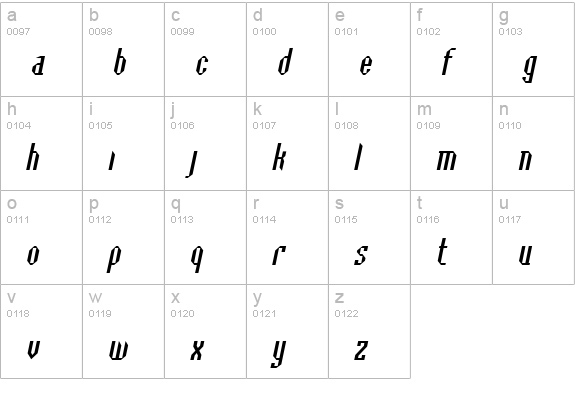
BaccusBevel Italic Font Details
BaccusBevel Italic is a distinctive, italic variant in the BaccusBevel typeface family \xE2\x80\x94 well suited to design and typography projects.
Introducing BaccusBevel Italic, a captivating font that effortlessly merges elegance with a touch of playfulness. This font is the epitome of sophistication, perfect for adding a touch of class to any project. BaccusBevel Italic boasts a unique blend of curved and beveled edges, resulting in a visually striking and dynamic typeface. Its italicized design adds a subtle sense of movement, creating a sense of energy and intrigue. With its wide range of letterforms, BaccusBevel Italic offers versatility in its application. Whether you're designing a logo, crafting a headline, or creating a captivating poster, this font will make your text stand out from the crowd. One of the most remarkable aspects of BaccusBevel Italic is that it is freely available for download at FontsMarket.com. This means that designers, enthusiasts, and typophiles alike can access this exquisite font without any cost, making it an invaluable addition to any designer's toolkit. The artistry and craftsmanship behind BaccusBevel Italic make it an exceptional choice for projects seeking to elevate their visual appeal. Its flawless execution and attention to detail ensure that each character is meticulously crafted and exudes a sense of refinement. Whether you're aiming to create a sense of nostalgia, evoke a classic aesthetic, or simply add a touch of elegance, BaccusBevel Italic is the perfect companion. Its timeless charm and effortless beauty will leave a lasting impression on any viewer. So, why wait? Discover the limitless possibilities that BaccusBevel Italic offers and download it for free at FontsMarket.com today. Let your creativity soar as you embrace the beauty of this remarkable font and bring your designs to life.